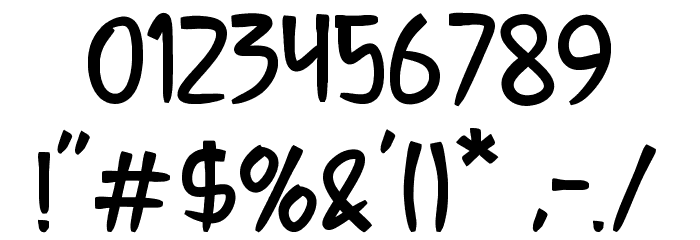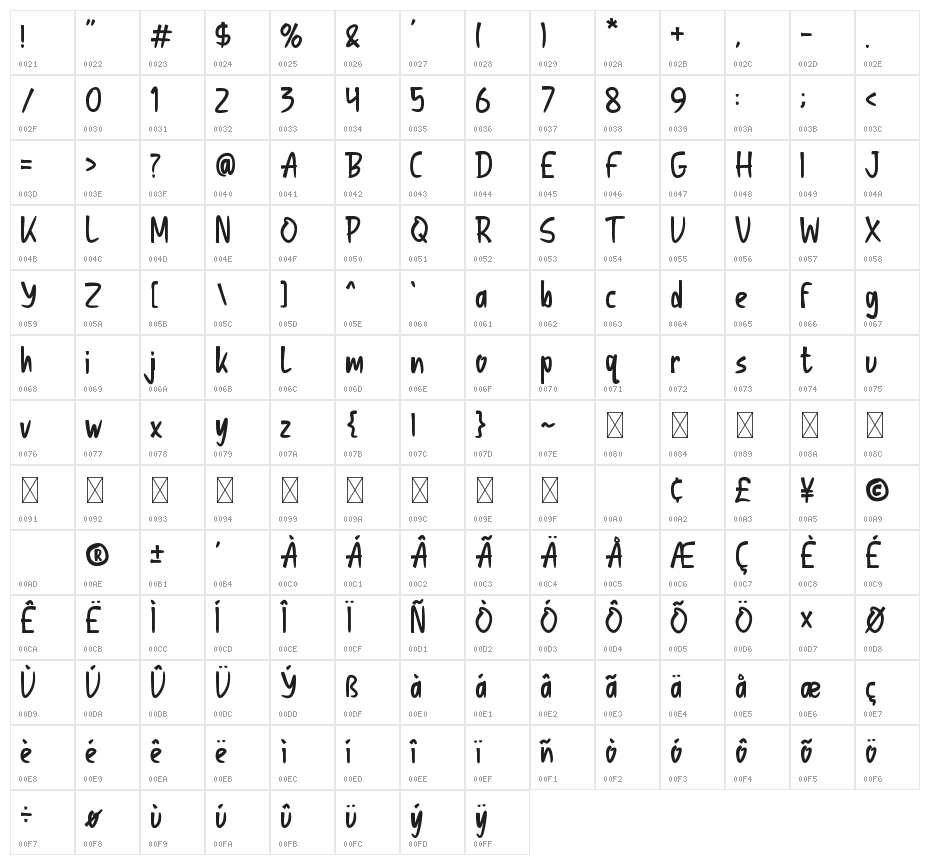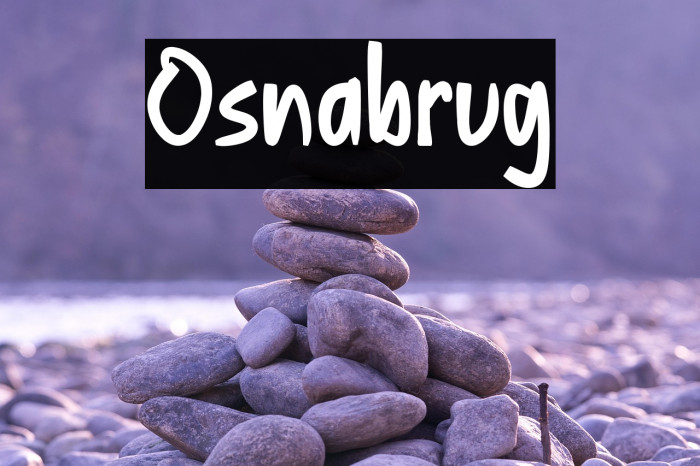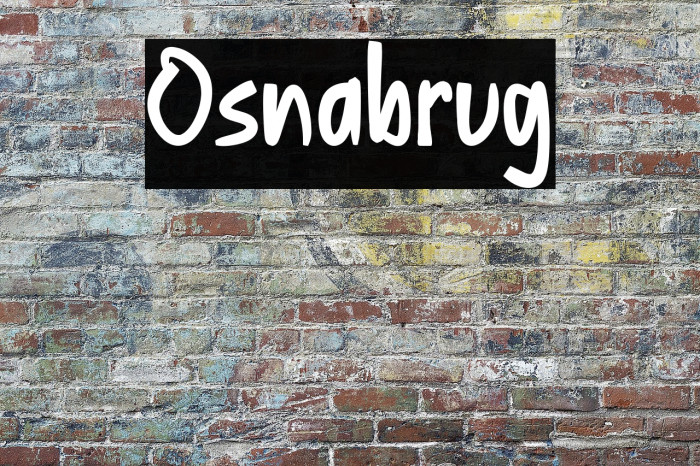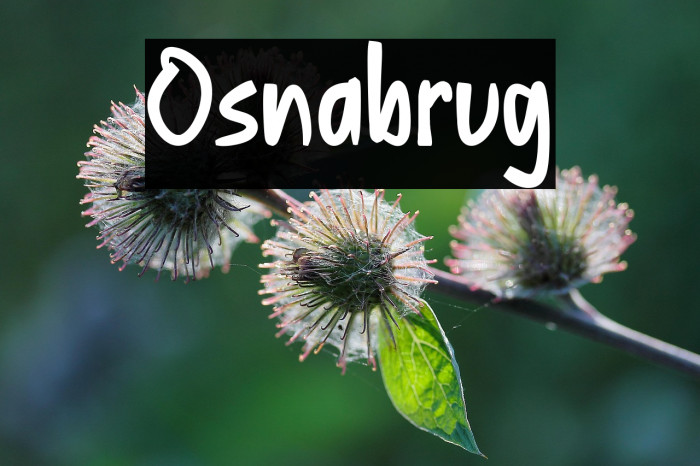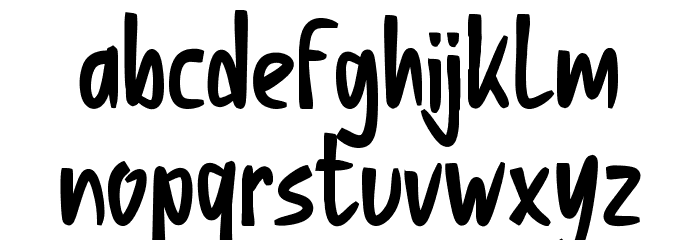
Osnabrug Font
Osnabrug Description
This font features a playful and casual handwritten style, characterized by its rounded and slightly irregular letterforms. The uppercase and lowercase letters maintain a consistent flow, giving it a friendly and approachable appearance. The numerals and special characters are designed to match the overall aesthetic, ensuring a cohesive look across all text elements. The strokes are moderately thick, providing good readability while retaining a sense of informality. This font is ideal for projects that require a personal touch, such as invitations, greeting cards, or creative branding.
| Proposed Projects | Ideal for invitations, greeting cards, children's books, and creative branding. |